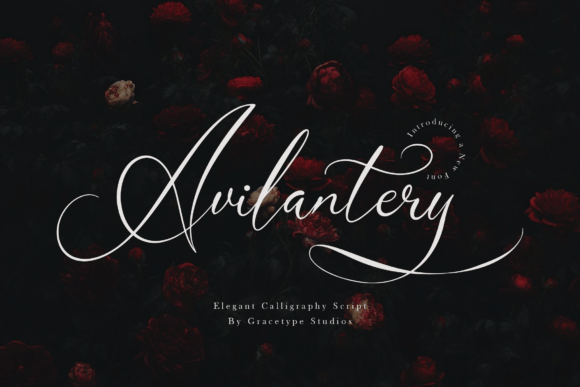
Discover the Elegance of Avilantery Font: A Designer’s Dream
I still remember the time I was working on a luxury wedding project, and my client asked for a font that would make their stationery look like it was plucked straight from a fairy tale. I scoured the internet, tried out countless fonts, but nothing seemed to fit the bill. That was until I stumbled upon Avilantery Font – an elegant calligraphy script that flows with poetic grace. In this article, I’ll share my experience with Avilantery, its features, and how to make the most of it in your designs.
A Personal Review: What I Love About Avilantery
Here’s what makes Avilantery a standout font:
- ✨ Elegant and sophisticated: Avilantery’s sweeping flourishes and intricate loops evoke the feeling of high-end wedding stationery and luxury branding.
- ✅ Seamless connections: Every letter in the Avilantery font is designed to connect seamlessly, creating a sophisticated silhouette.
- 💫 Versatile: Avilantery looks stunning on dark, moody backgrounds or gold-pressed foils, making it perfect for a variety of design projects.
- 🎉 PUA encoded: All glyphs and swashes are PUA encoded, making them simple to use in any design software.
While Avilantery is an amazing font, there are a few things to keep in mind:
- ⚠️ Limited use on small text: Due to its intricate design, Avilantery might not be the best choice for small text or body copy.
- 🤔 Requires some practice: Mastering the use of glyphs and swashes might take some time, especially for those new to OpenType features.
A Practical Guide: Using Avilantery in Your Designs
The Story Behind Avilantery
Avilantery was inspired by the art of traditional calligraphy. Its creator aimed to craft a font that would evoke the feeling of luxury, sophistication, and romance. With its intricate loops and sweeping flourishes, Avilantery is a testament to the beauty of handwritten typography.
| What is the best way to use Avilantery in my designs? | Experiment with Avilantery as a headline font, use it for initials or signatures, or combine it with a clean, modern serif for a striking contrast. |
| Is Avilantery suitable for body copy or small text? | While Avilantery is a beautiful font, it’s not ideal for small text or body copy due to its intricate design. Consider using a simpler font for these purposes. |
| Can I use Avilantery on dark or colored backgrounds? | Avilantery looks stunning on dark, moody backgrounds or gold-pressed foils. Feel free to experiment with different background colors to find the perfect contrast. |